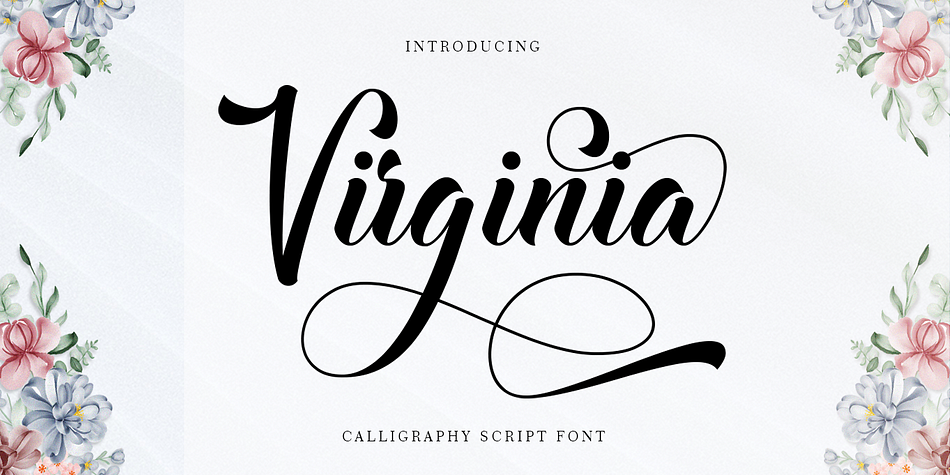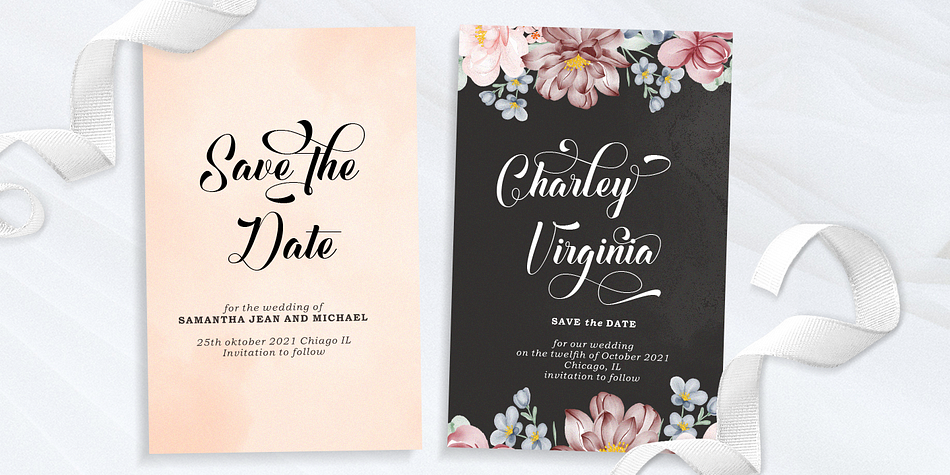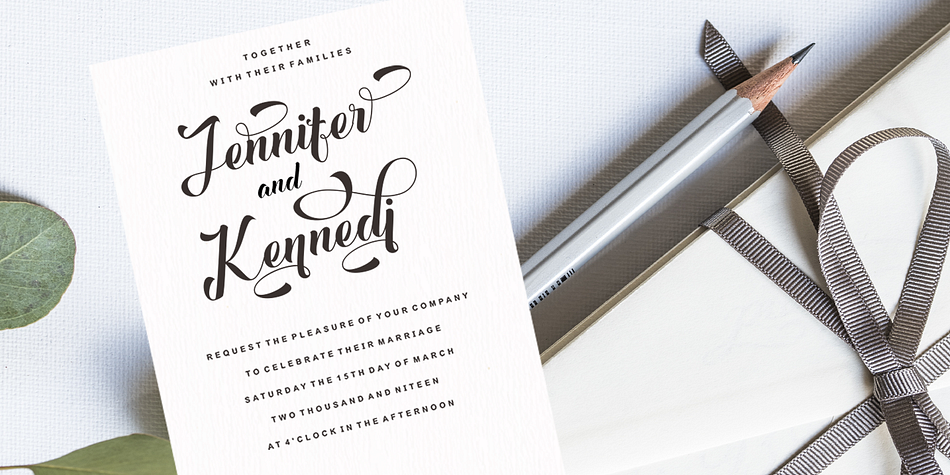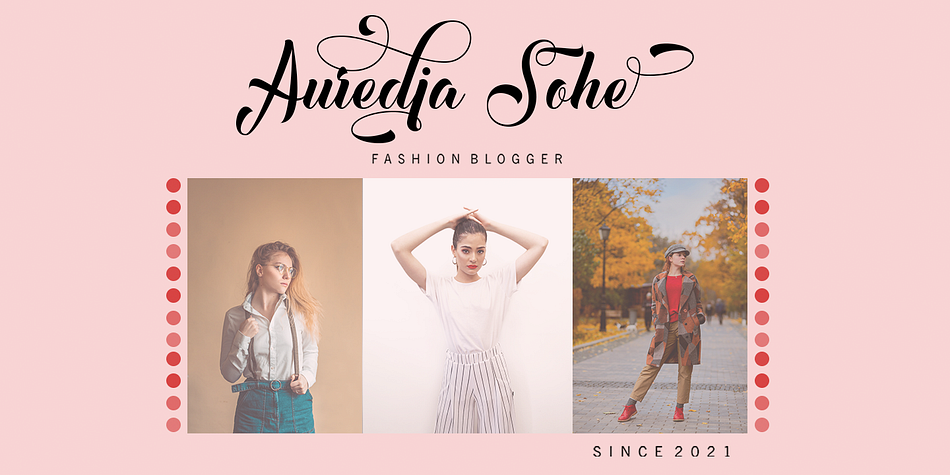
Virginia
Virginia is a modern calligraphy font family published by Gatype.
Virginia is a calligraphic script font with multiple baselines, designed to convey elegance and style. It is subtle, clean and feminine. Works perfectly for logos, magazines, menus, books, invitations, wedding/greeting cards, packaging, labels, t-shirts etc. All your designs will have a beautiful homemade touch with Virginia.